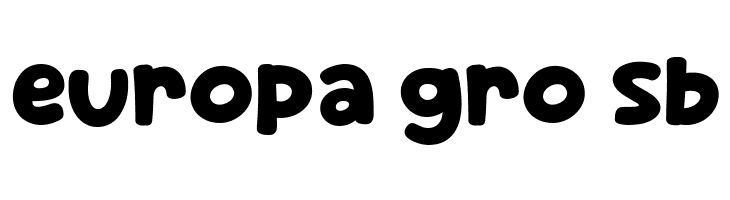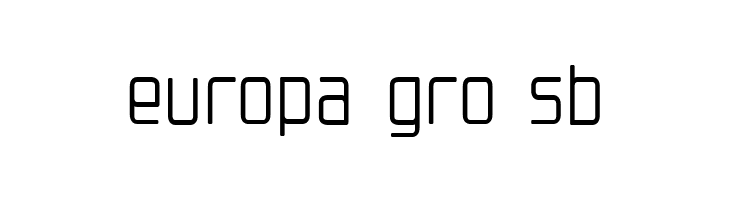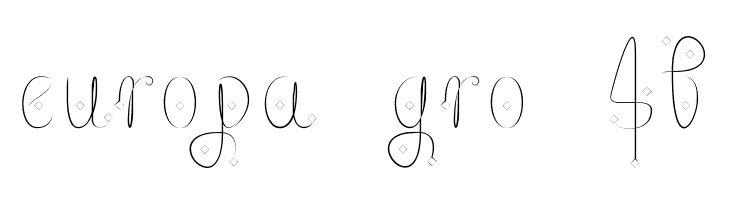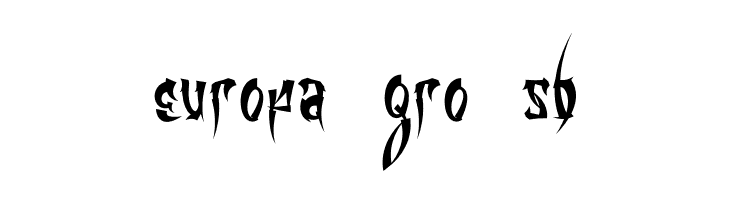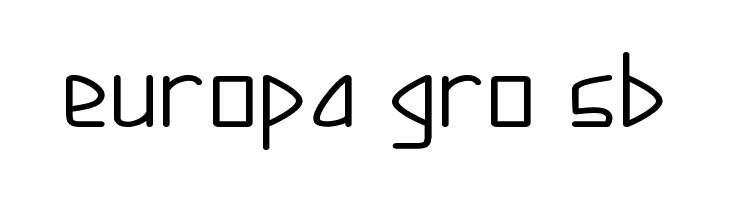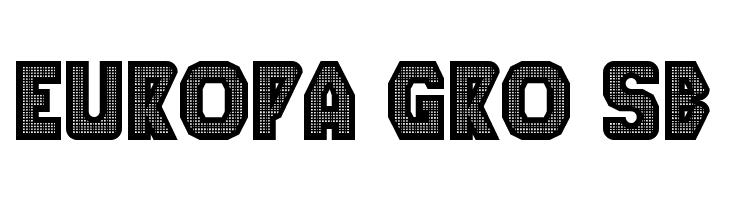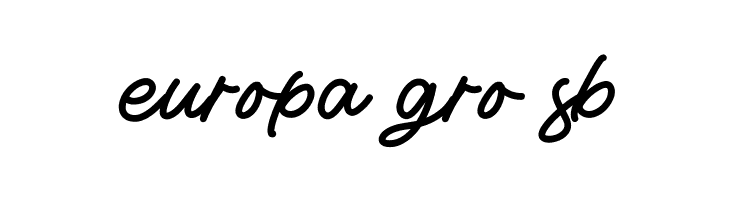
A playful, bold font with rounded, bubbly characters perfect for creative projects.
A bold, expressive script font with high contrast and dynamic strokes.
A bold, dynamic script font with interconnected characters and high contrast.
A modern, geometric font with tall, narrow characters and a sleek design.
A modern, geometric font with clean lines and a structured appearance.
An elegant, whimsical font with thin lines and playful flourishes.
A bold, gothic-inspired font with sharp, jagged edges and dynamic styling.
A playful, modern handwritten font with rounded edges and consistent character height.
A bold, dotted display font with a modern, geometric style.
A fluid and dynamic script font with a handwritten appearance.